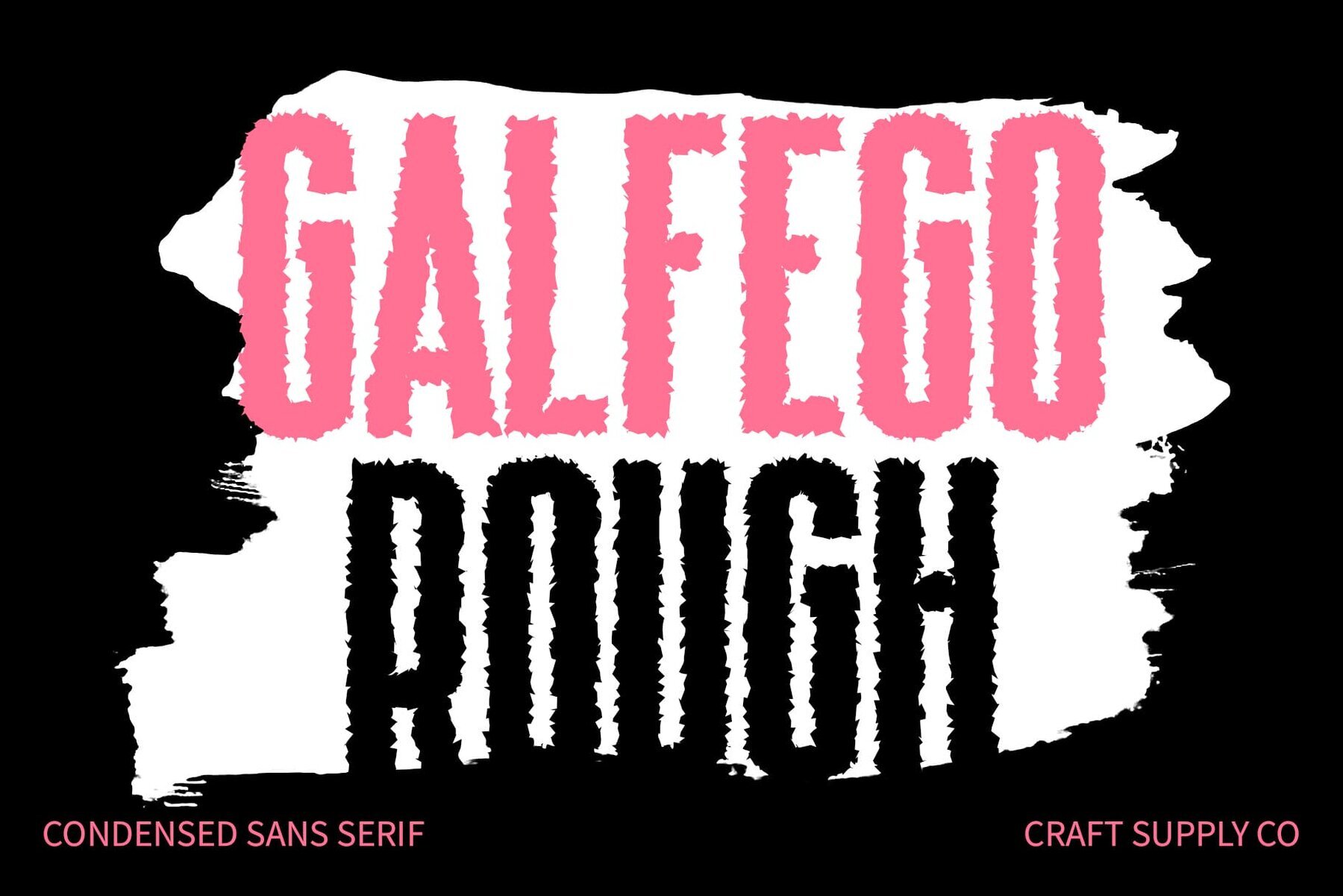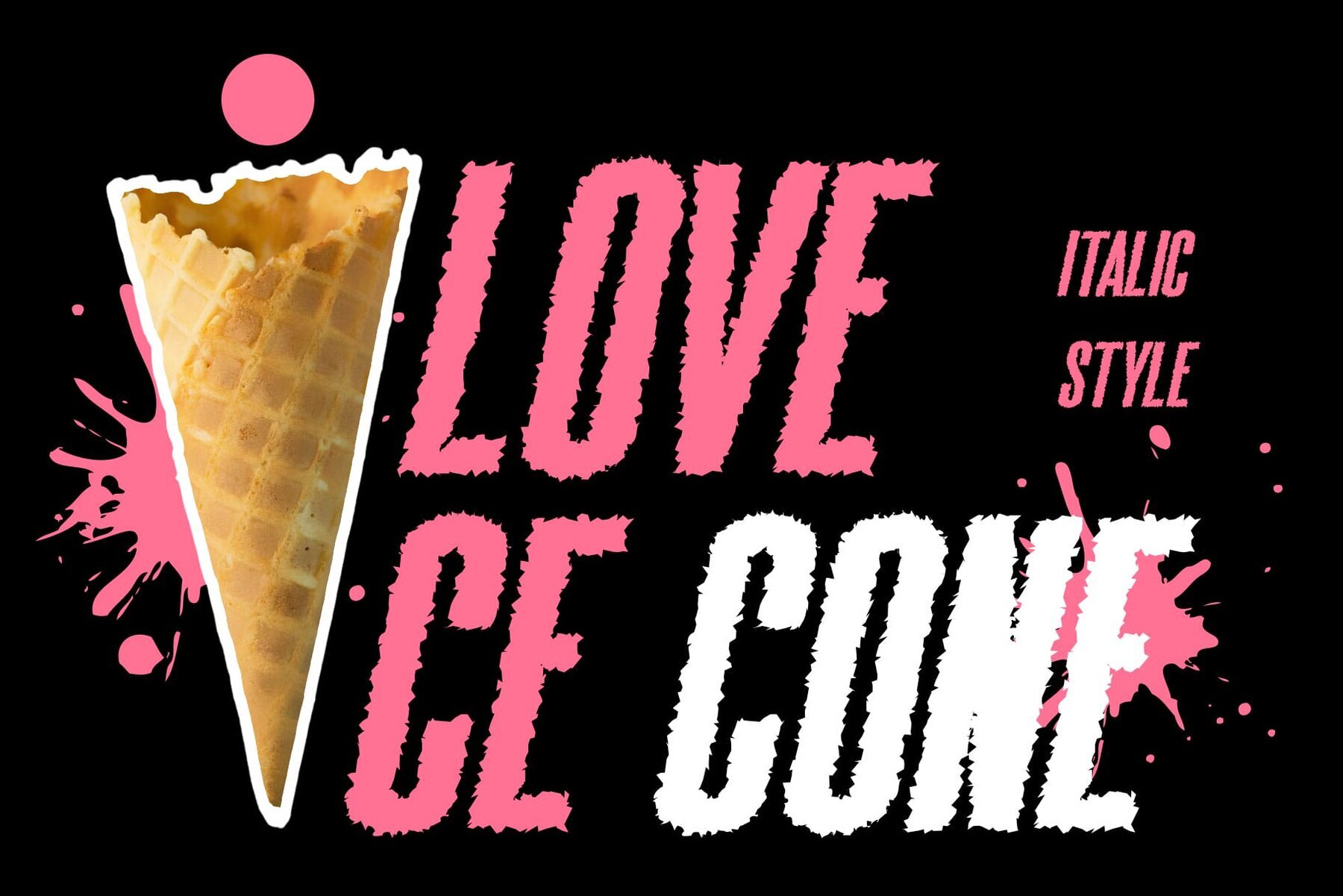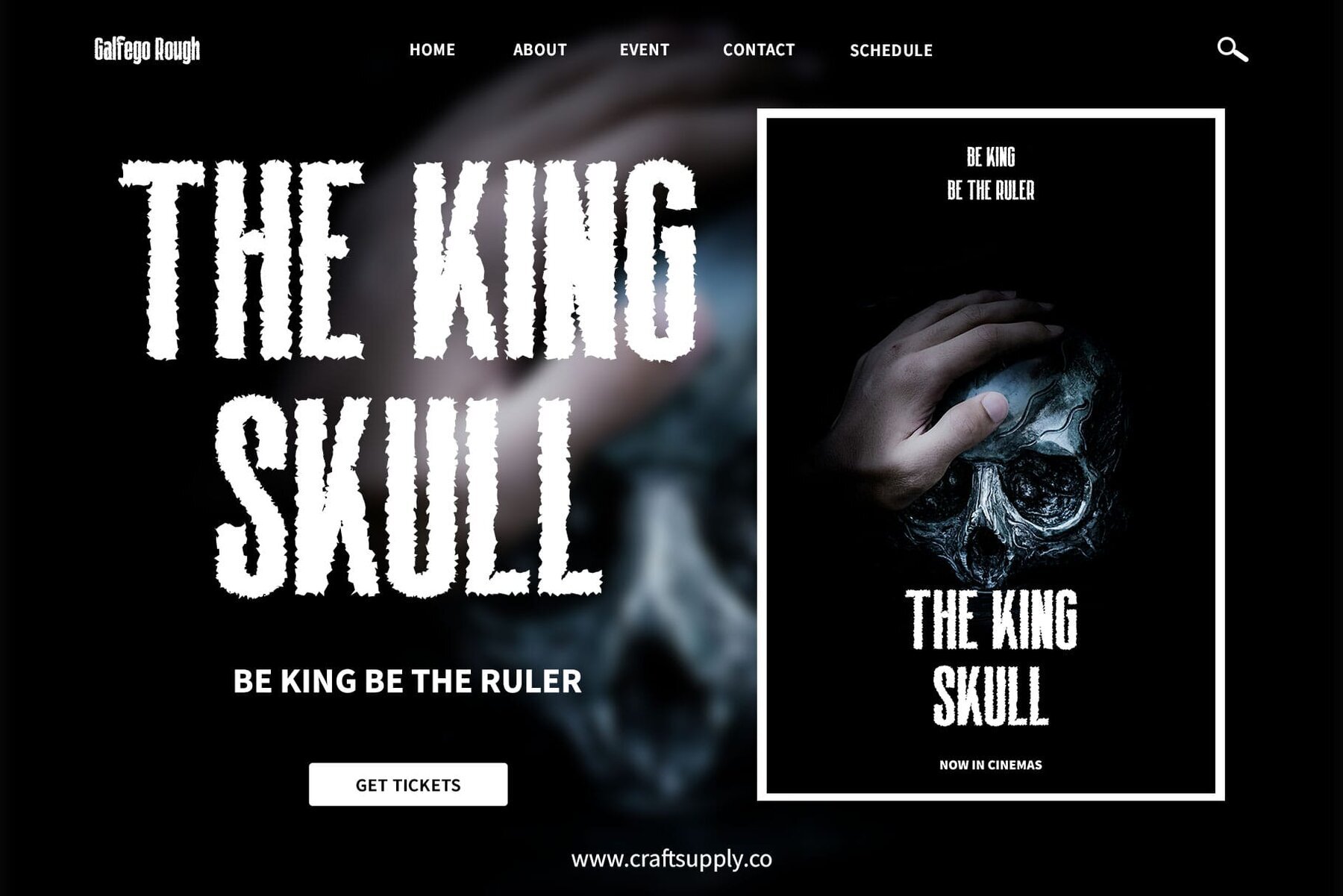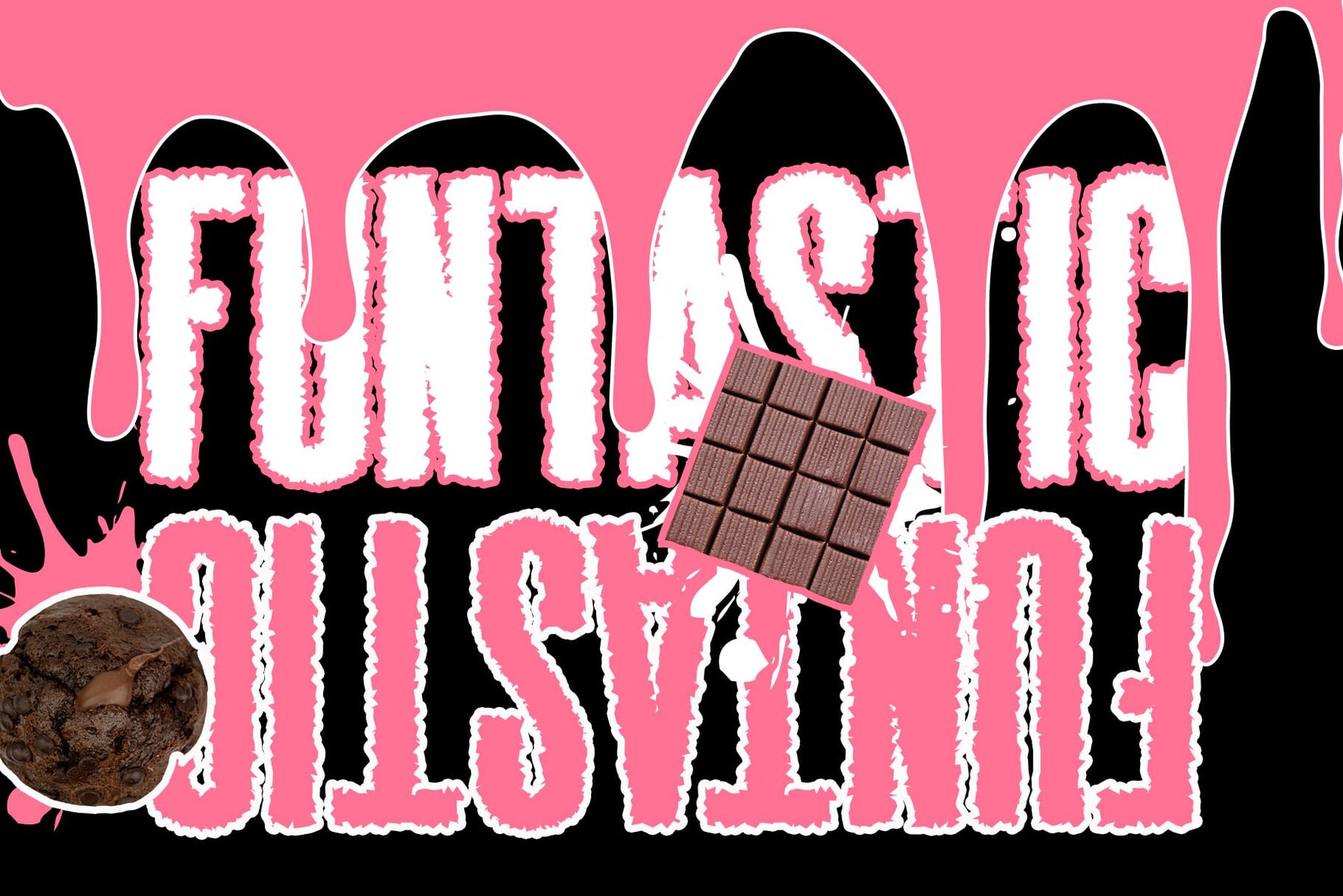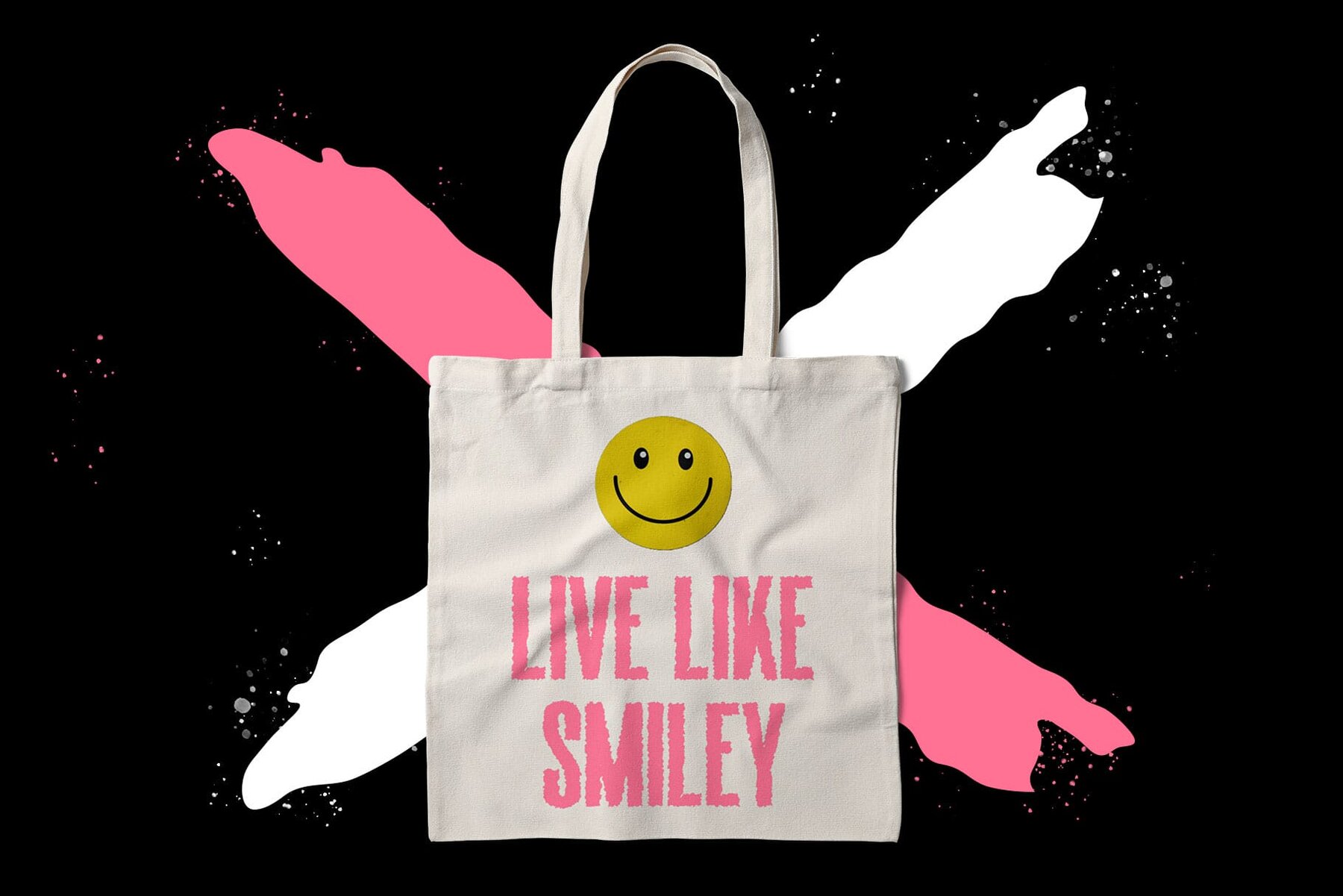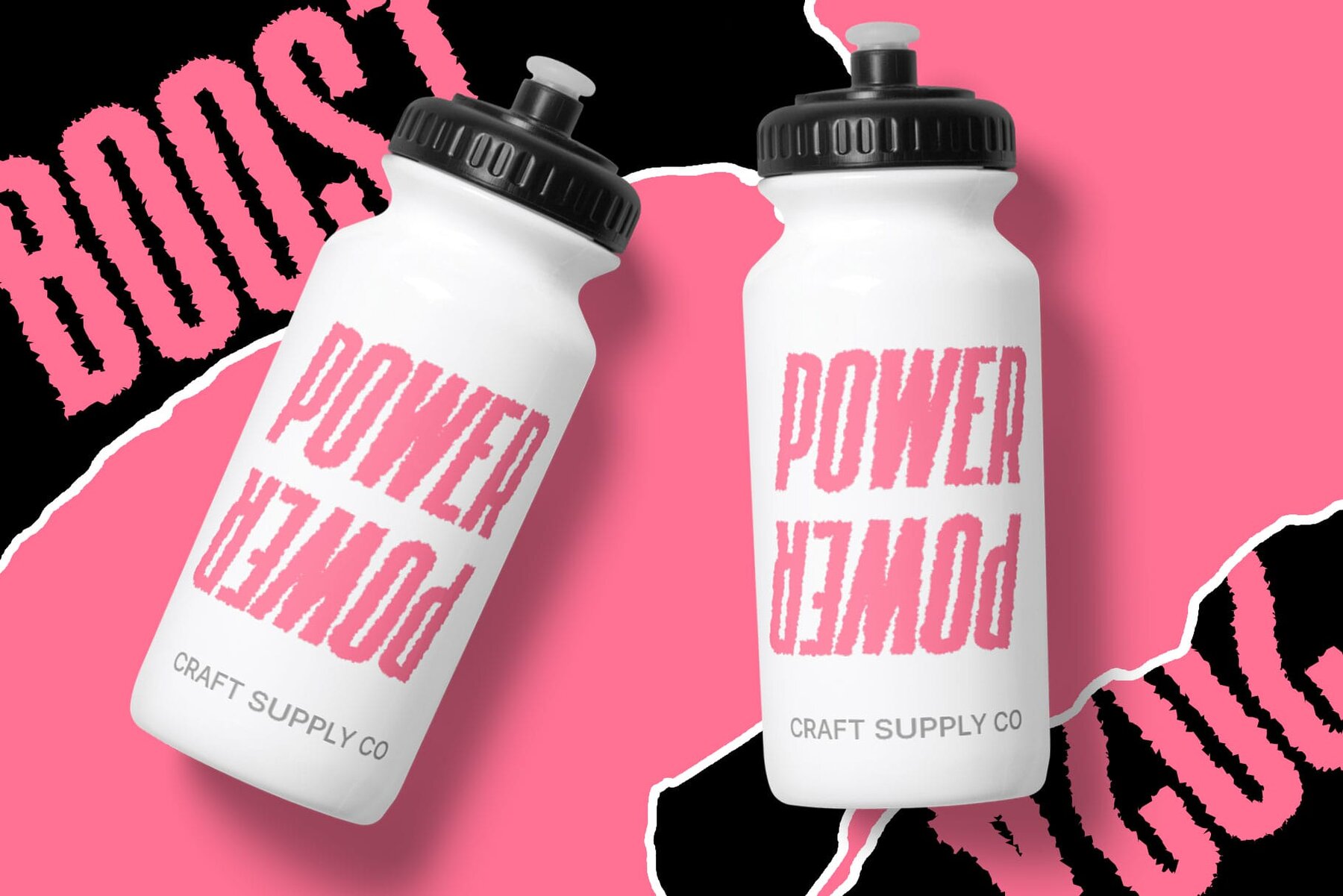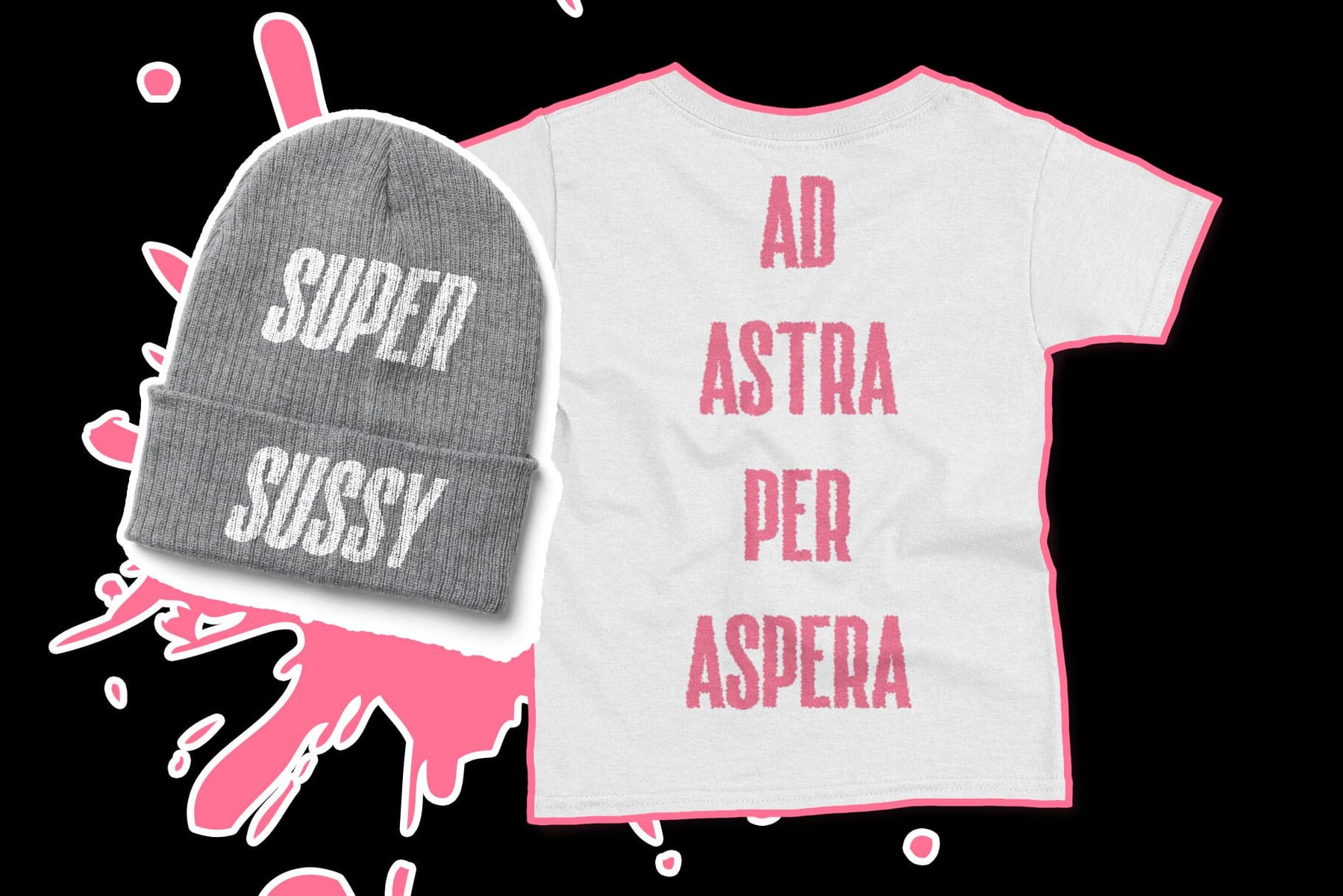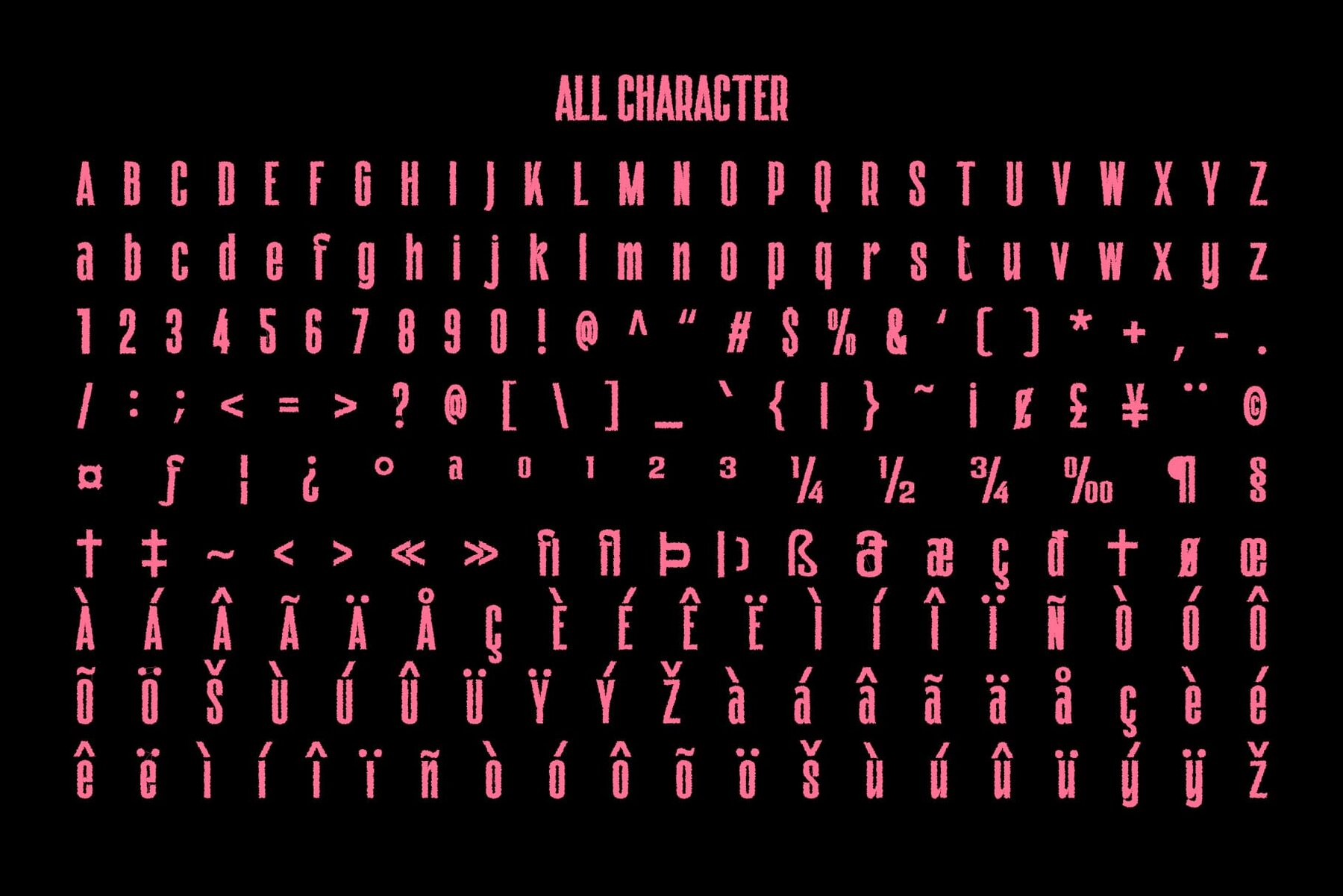
Galfego Rough Font
Galfego Rough merges vintage charm with modern design through its striking compact sans serif form. This font maximizes space efficiency and readability with its condensed structure, perfect for impactful headlines and bold displays. Designed with minimal whitespace, Galfego Rough allows for tighter layouts without compromising legibility, ensuring your design commands attention wherever it's used.
Infused with a rough texture, Galfego Rough offers a weathered, aged appearance reminiscent of classic vintage displays. This unique effect adds depth and character to each letter, enhancing its overall visual appeal. Combining these features, the font provides a nostalgic yet contemporary edge, making it ideal for retro-inspired projects. Available in regular and italic styles, with full support for uppercase, lowercase, numerals, punctuation, and multilingual characters, Galfego Rough is a versatile addition to any designer's toolkit.